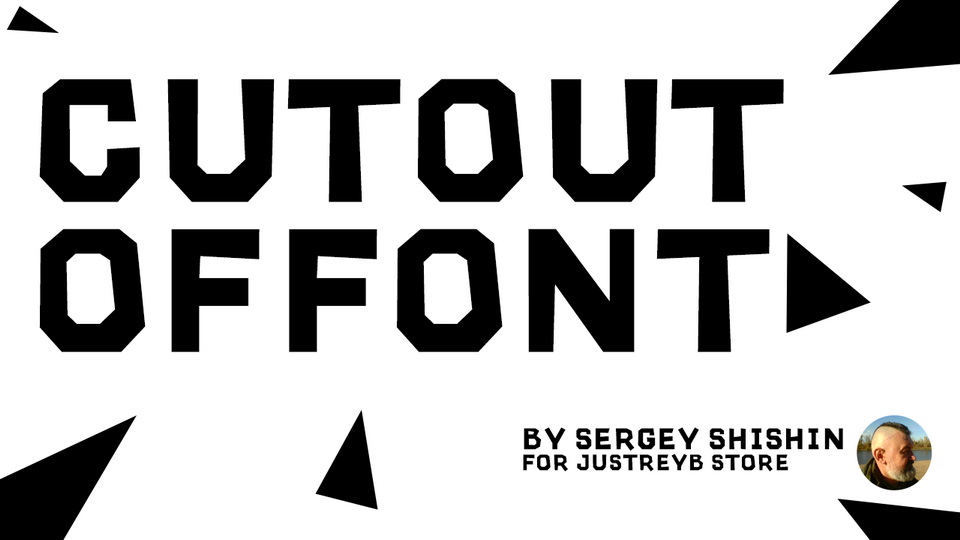
Download CutOutOff font, a bold display typeface with sharp and solid shapes. It will look great on posters, book covers, apparel design and anywhere where you need to draw attention to the words.
Designer: Sergey Shishin